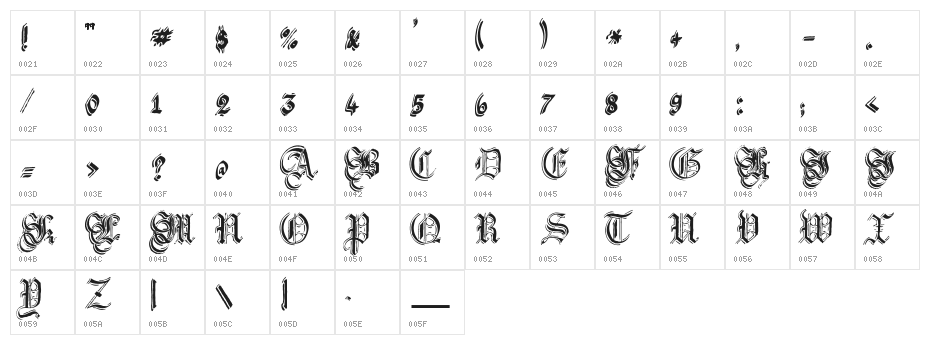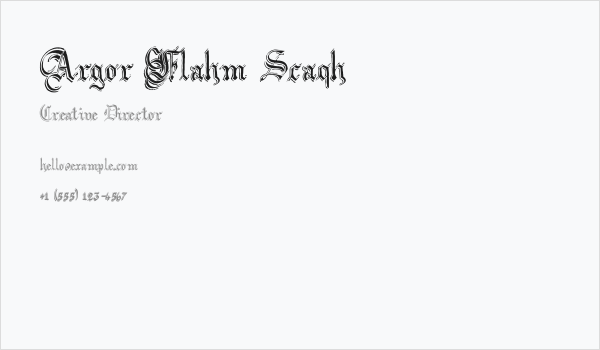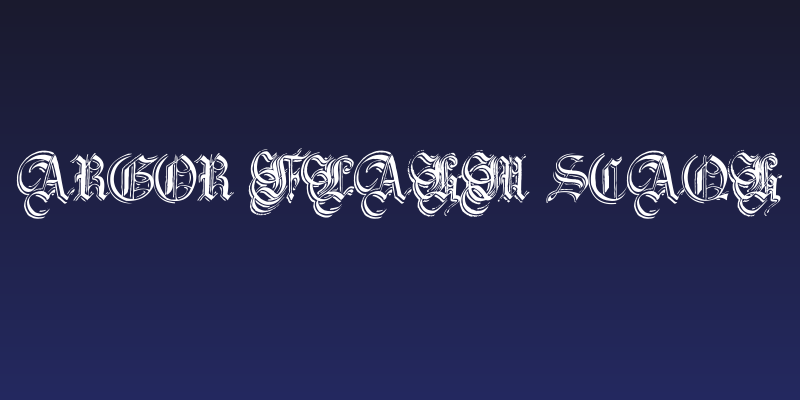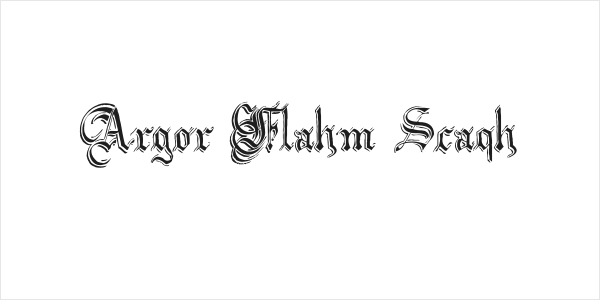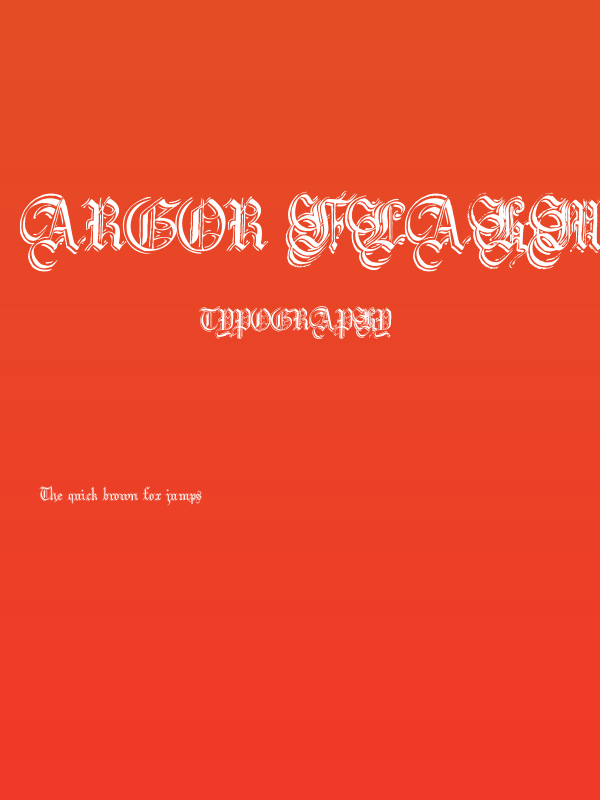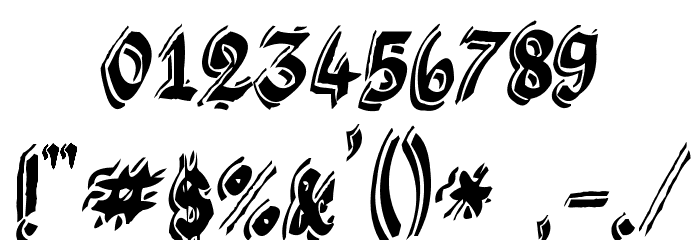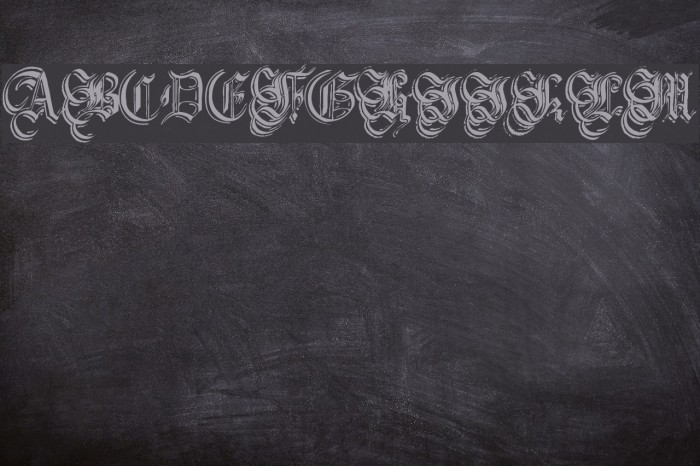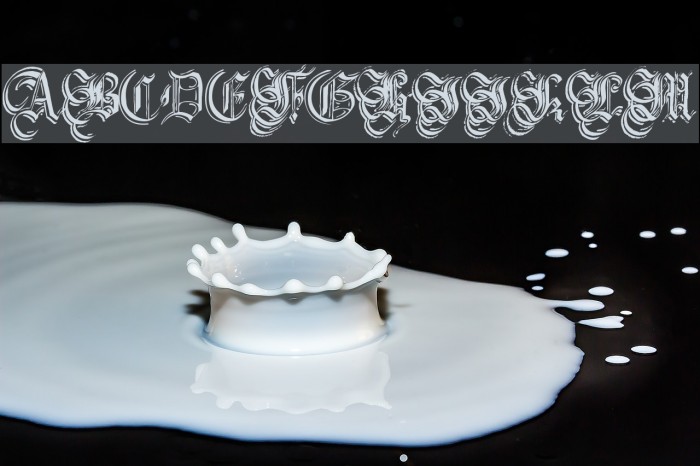
Argor Flahm Scaqh Font
Argor Flahm Scaqh Description
This font exudes a classic and ornate style, reminiscent of traditional Gothic or Blackletter typography. The characters are intricately designed with elaborate flourishes and sharp, angular lines, creating a sense of historical elegance. The uppercase letters are particularly decorative, featuring bold strokes and pointed serifs that enhance their majestic appearance. The lowercase letters maintain a consistent style, with a slightly more subdued flair, yet still retain the overall dramatic aesthetic. The numerals and special characters are equally stylized, ensuring a cohesive look across all elements. This font is ideal for projects that require a touch of sophistication and a nod to historical design.
| Overall Style | Vintage |
| Use Case | Logos, Headlines, Decorative text |
| Proposed Projects | Suitable for wedding invitations, historical documents, book covers, and branding that requires a classic touch. |